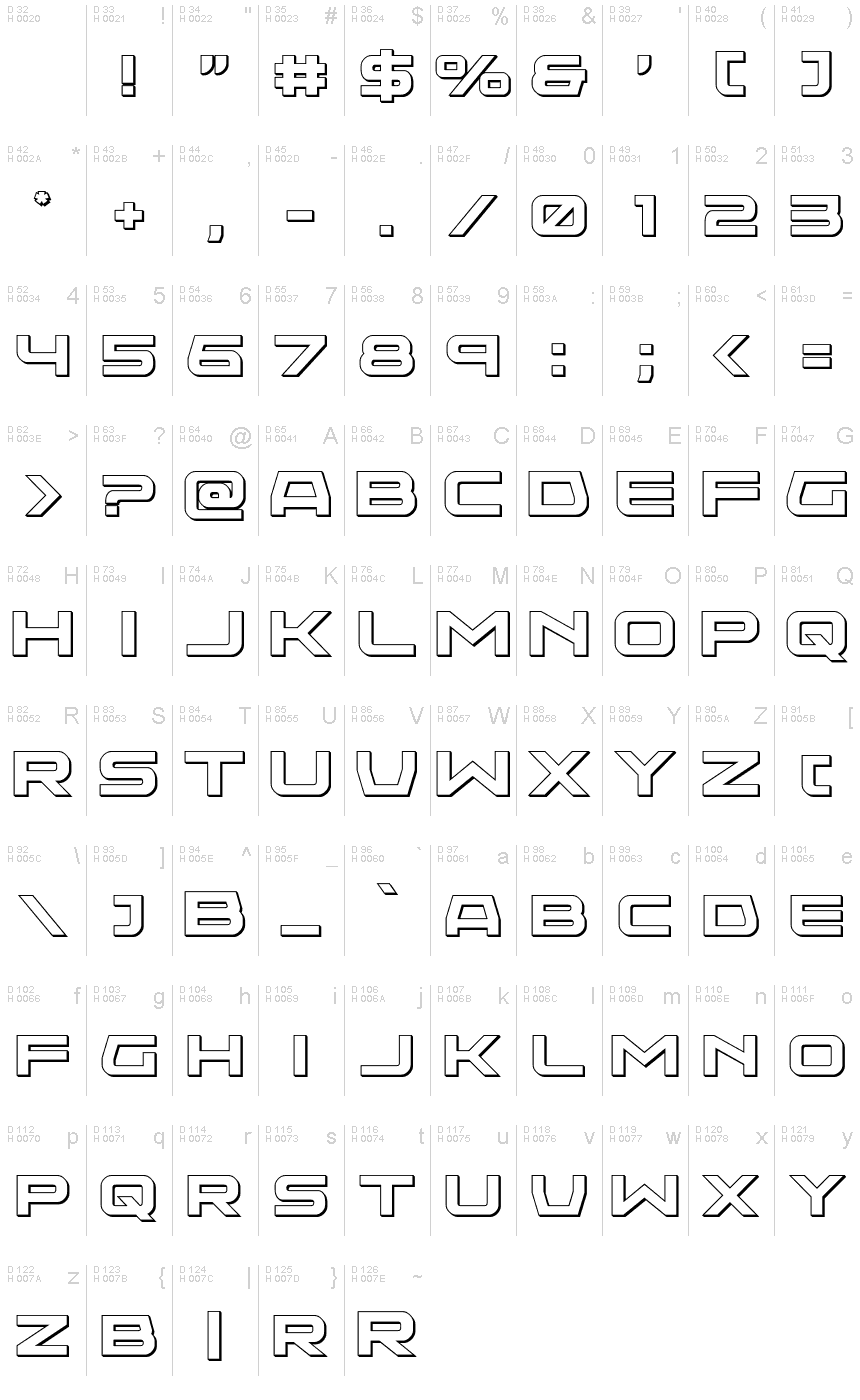
Neutron Dance 3D
Neutron Dance 3D, a captivating display font by Daniel Zadorozny, adds a futuristic touch to your projects. With its expanded width, this font demands attention and exudes confidence. Its sleek and modern design makes Neutron Dance 3D perfect for eye-catching logos, cutting-edge websites, and dynamic banners. Elevate your sci-fi films with sleek titles or create mesmerizing posters that transport viewers to an intergalactic realm. Let Neutron Dance 3D lead the way in expressing innovation and sophistication in your creative endeavors.